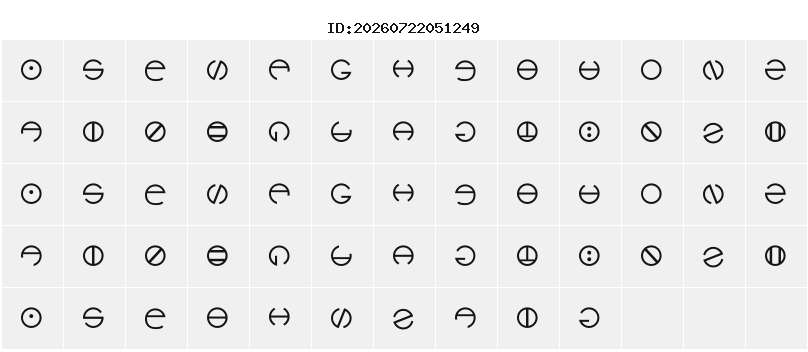
• Font Name: Hyach
About Hyach.ttf
Hyach.ttf is a modern, elegant sans-serif font designed for ultimate readability and visual harmony. Perfect for branding, headlines, web design, and print materials.